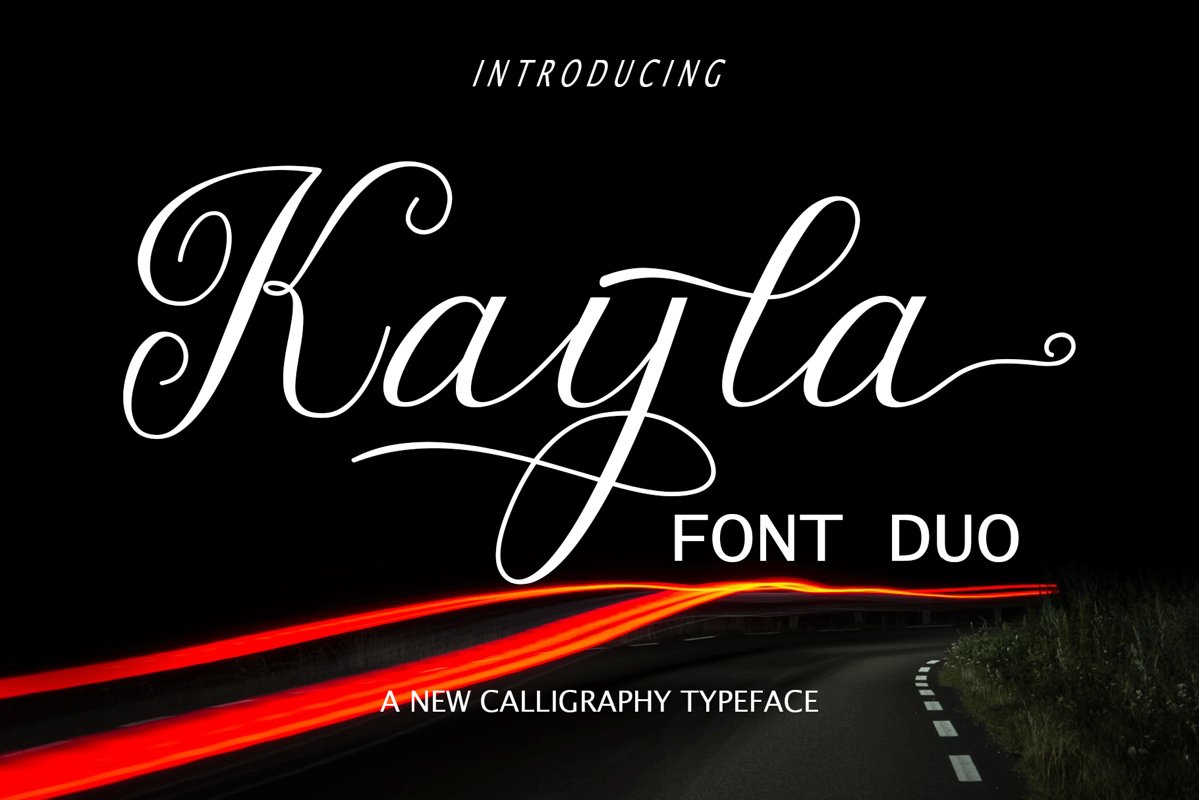
Kayla Font duo
Kayla
Kayla Font is designed for font users who like Modern Characters. This font is equipped with various alternative front and back characters as well as upper and middle fonts, making it suitable for signatures, aphorisms, book titles, magazine titles, invitation cards, or works that require original handwritten characters.
this font is;
* Alternative Style
* Set style